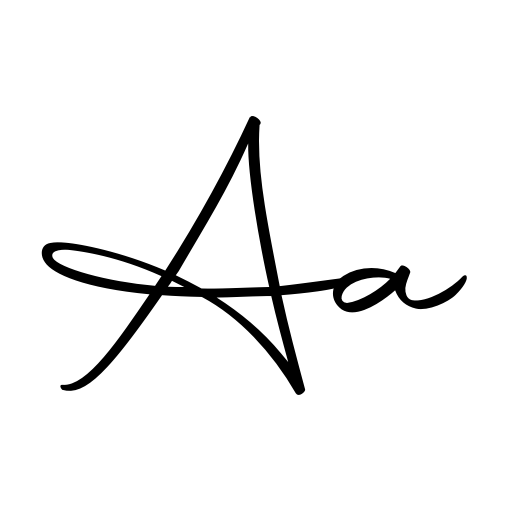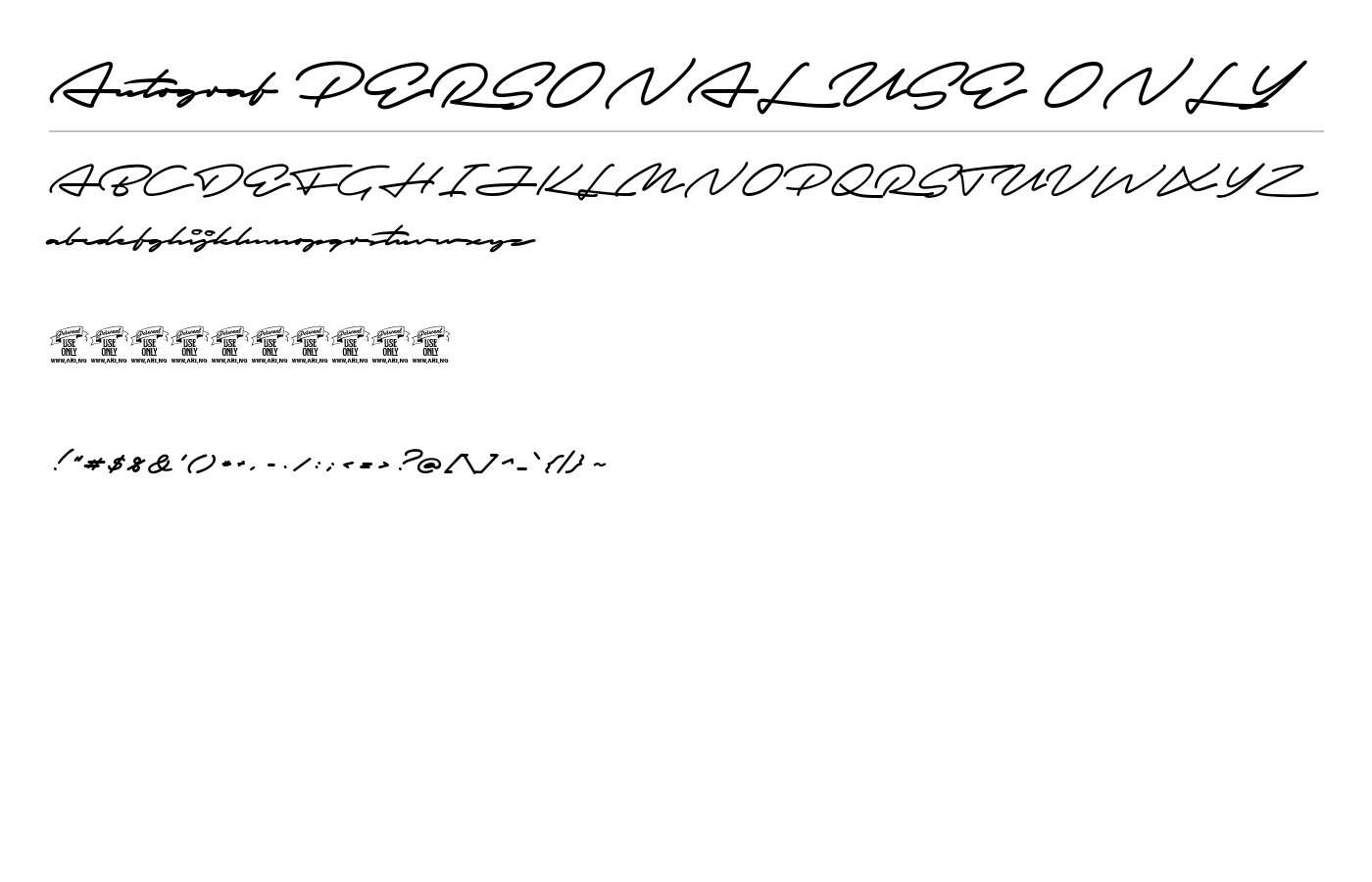
Autograf PERSONAL USE ONLY is a sleek, handwritten script font that captures a natural, flowing signature style with elegant, elongated letterforms and smooth, connected strokes. Its light weight and slightly condensed width give it a refined, personal touch, making it perfect for branding, invitations, and any design seeking a sophisticated yet approachable handwritten feel. This font works best in creative projects that benefit from a stylish, authentic, and intimate aesthetic.
Autograf PERSONAL USE ONLY Font
About Autograf PERSONAL USE ONLY Font
| Designer | MÂns Greb‰ck |